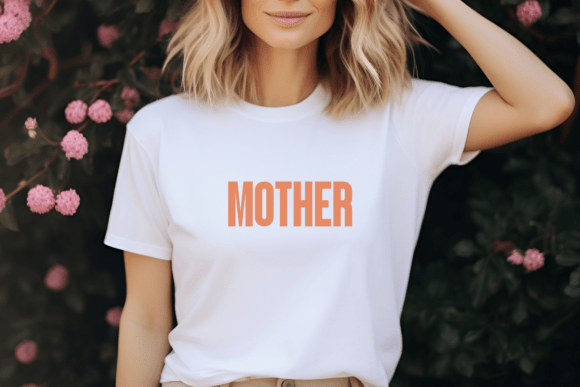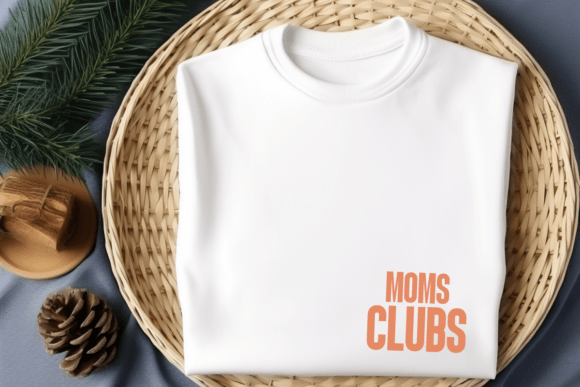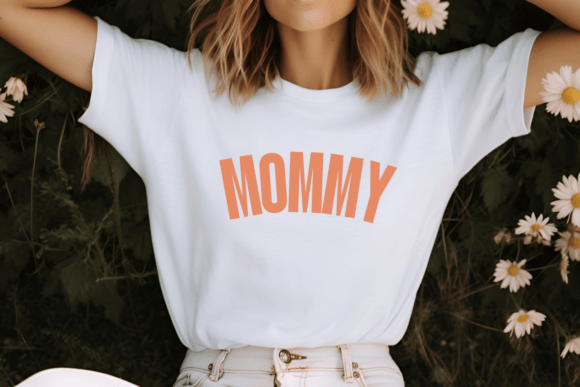
Introduction to Salty Mother Font
You’ve finally nailed that perfect design for your creative project, but something’s missing – the perfect font. You scroll through your font library, and then, it hits you – a clean, modern sans serif font that screams ‘I got this!’ That’s exactly what Salty Mother Font is all about, providing that elusive ‘wow’ factor to elevate your designs.
For designers, finding the right font can make all the difference between a decent and a show-stopping design. That’s why we’re excited to dive into the world of Salty Mother Font, a high-quality font that’s sure to be a game-changer for your next project.
Whether you’re working on a print-on-demand project or creating a brand identity, Salty Mother Font is the perfect design resource to help you achieve that perfect balance of style and functionality.
Key Features of Salty Mother Font
- High-quality, vector-based font design suitable for creative projects, offering a unique and stylish look.
- Features a transparent background, allowing for seamless integration with any design element or background.
- Includes a wide range of characters, including uppercase and lowercase letters, numbers, and special symbols, making it a versatile design resource.
- Perfect for use in various creative projects, such as logos, branding materials, and digital designs, where a unique and stylish font is required.
Honest Review: Salty Mother Font
I recently had the chance to work with the Salty Mother Font, and I must say it’s been a game-changer for my creative projects. ✨ The high-quality design and transparent background make it perfect for any project that requires a touch of elegance.
- High-quality design: The font is beautifully crafted, with a unique and stylish design that’s sure to impress.
While the Salty Mother Font is a great addition to any design toolkit, there are a few limitations to consider:
- ⚠️ Limited customization options: While the font itself is great, there are limited options for customizing it to fit your specific design needs.
- ⚠️ Not suitable for all design projects: Due to its elegant design, the Salty Mother Font may not be the best choice for more casual or playful projects.
Overall, I’m impressed with the Salty Mother Font and would highly recommend it to designers looking for a high-quality, free design resource.
The Salty Mother Font is a versatile design resource that can be used in various creative projects, including branding, marketing materials, and social media graphics.